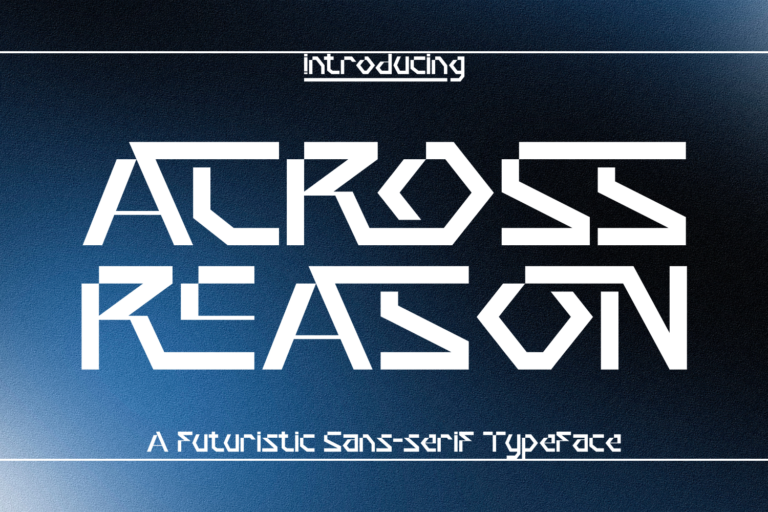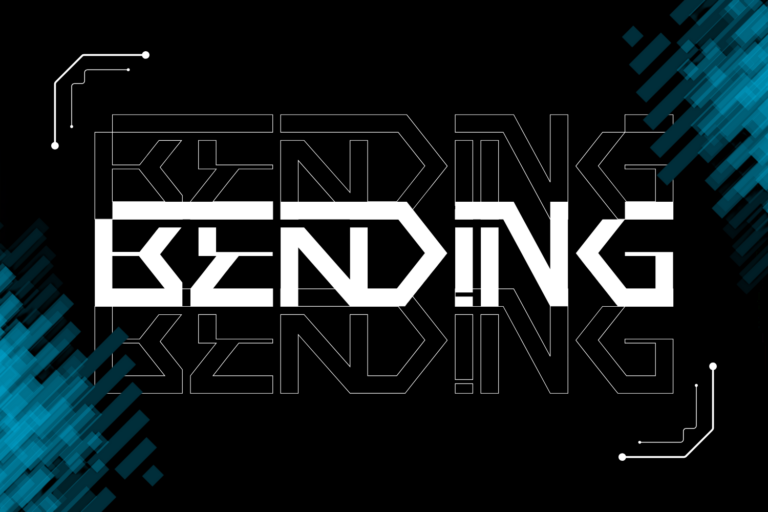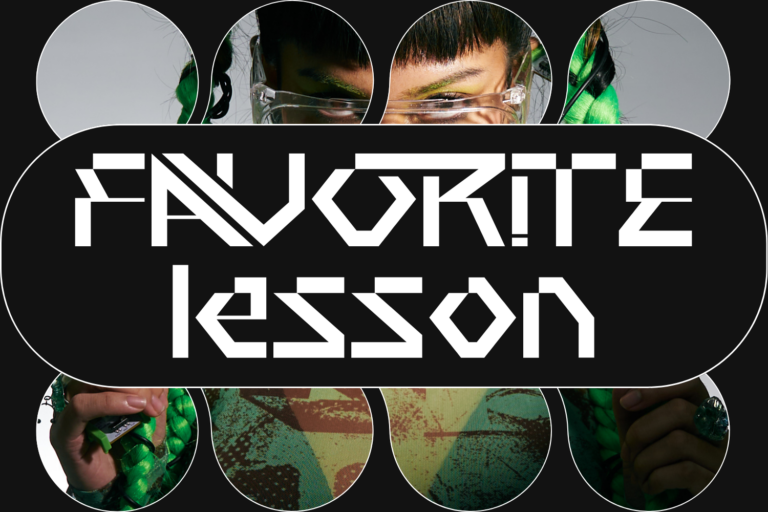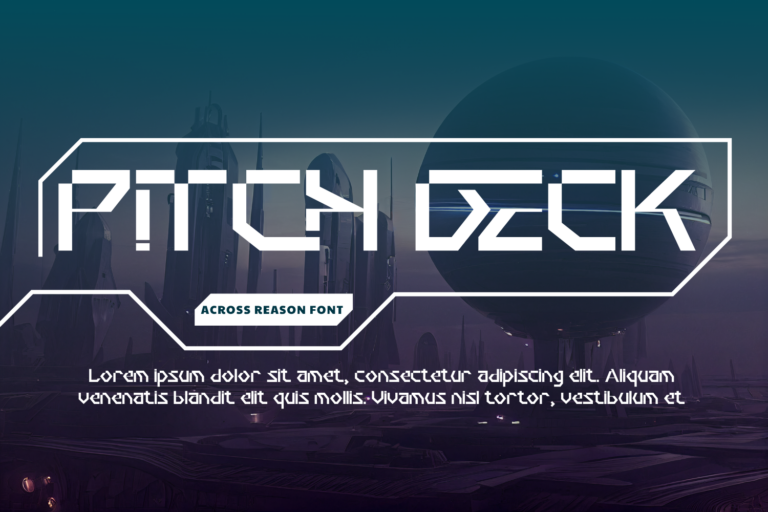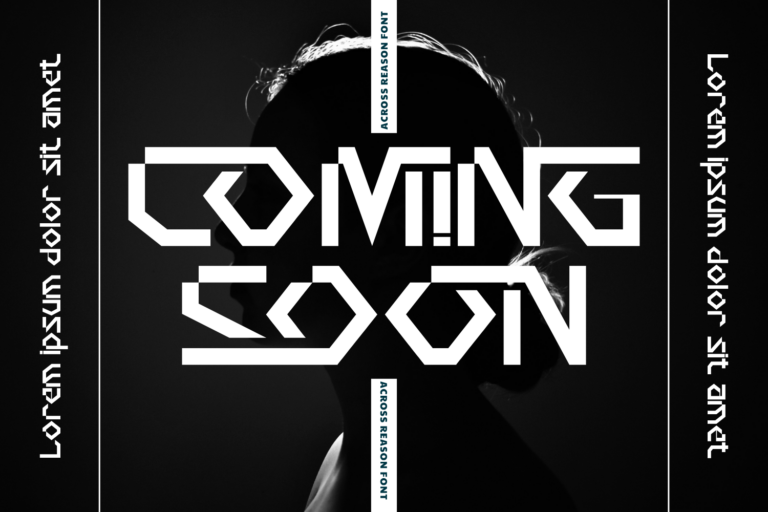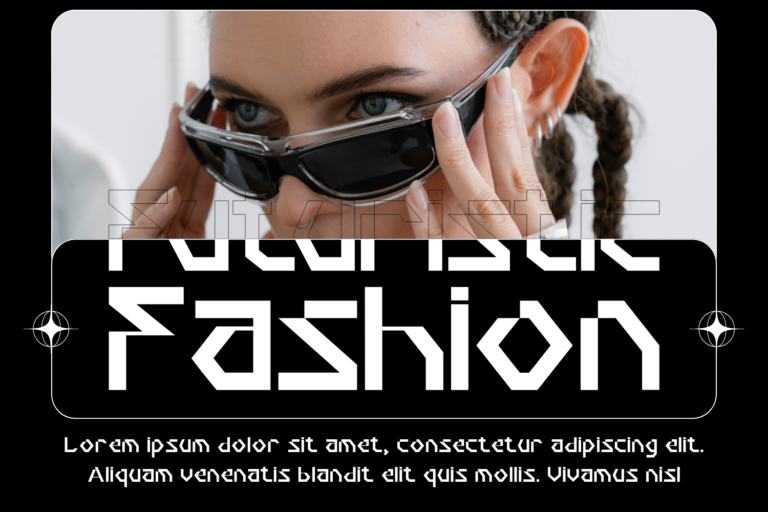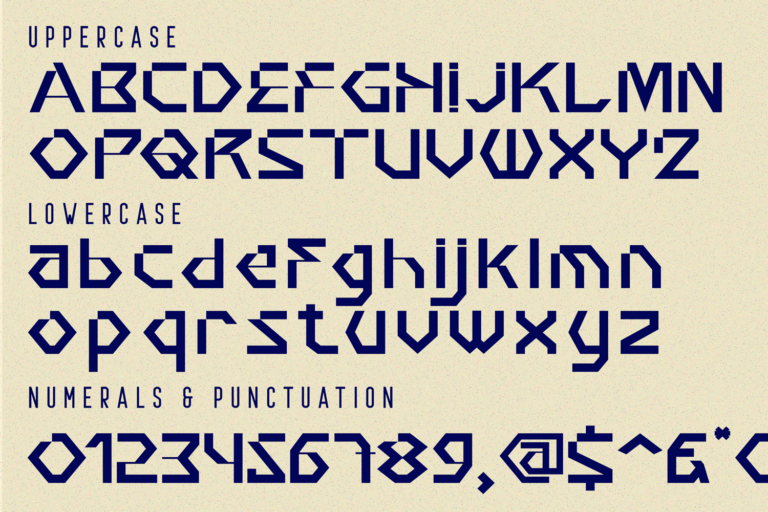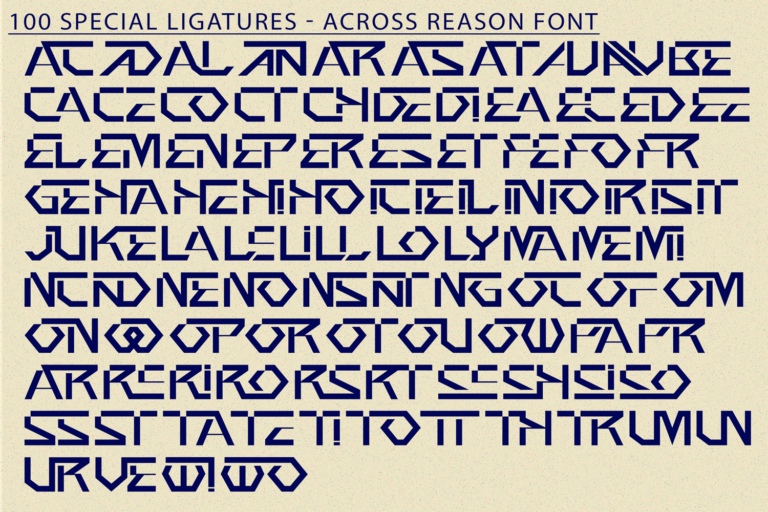
ACROSS REASON – Geometric Font, is a cutting-edge geometric display font crafted for bold, futuristic aesthetics. Inspired by science fiction, robotics, and electronic interfaces, every character in this typeface is constructed with angular precision and a modular logic. The letters are composed of sharp lines, unexpected cuts, and negative space, forming a cryptic yet readable visual language.
This font is ideal for sci-fi posters, techno music branding, esports logos, or any design that seeks a digital dystopia meets intelligent geometry feel.
ACROSS REASON includes:
• Uppercase & Lowercase letters
• Over 100 stylistic ligatures for custom modular combinations
• Numerals & punctuation
• Multilingual accented characters
AC AD AL AN AR AS AT AU AV BE CA CE CH CO CT DE DI EA EC ED EE EL EM EN EP ER ES ET FE FO FR GE HA HE HI HO IE IC IL IN IO IR IS IT JU KE LA LE LI LL LO LY MA ME MI NC ND NE NG NO NT NS OC OF OM ON OO OP OR OT OU OW PA PR RA RD RE RI RO RS RT SE SH SI SO SS ST TA TE TH TI TO TR TT UM UN UR VE WI WO
ACROSS REASON – Geometric Font